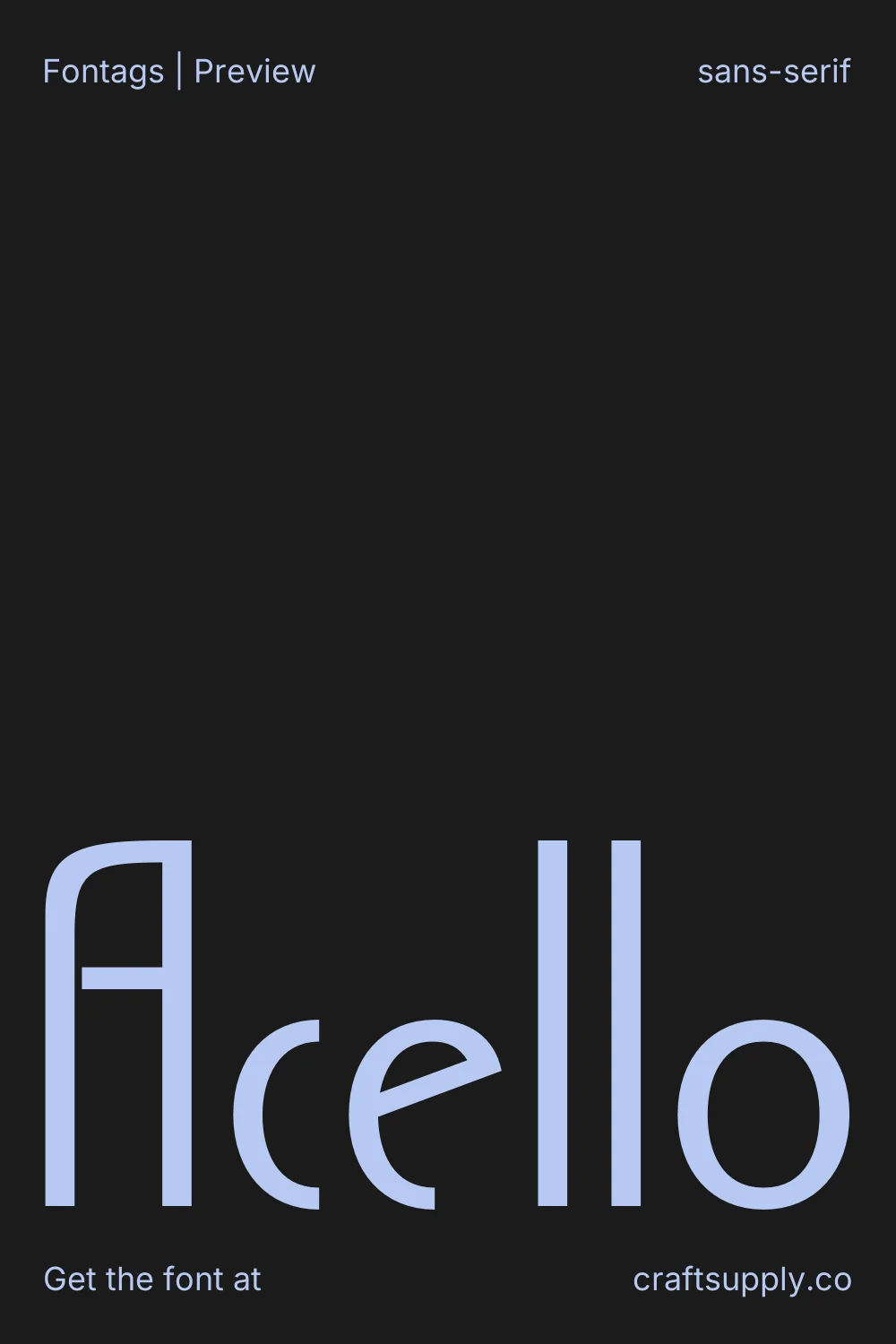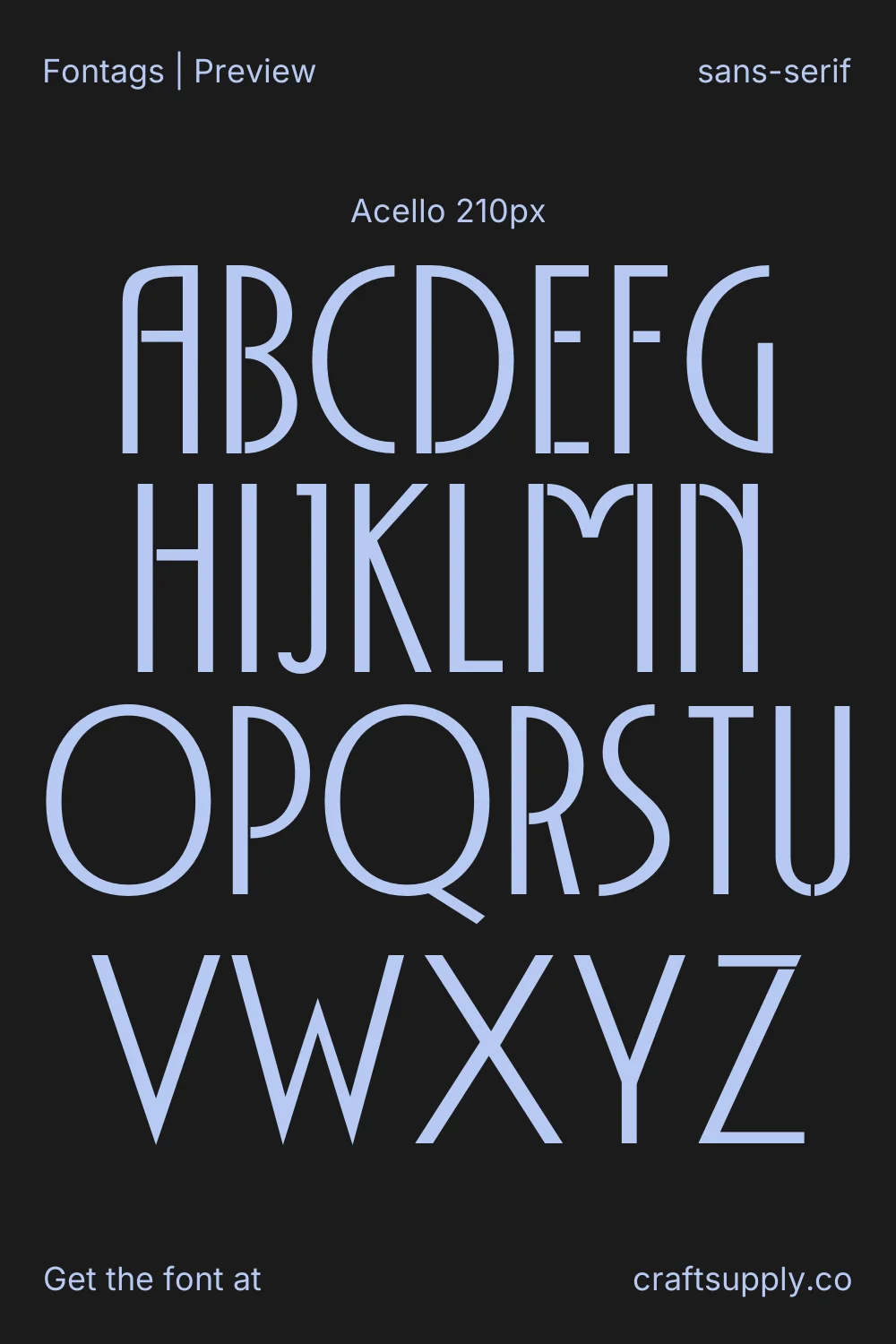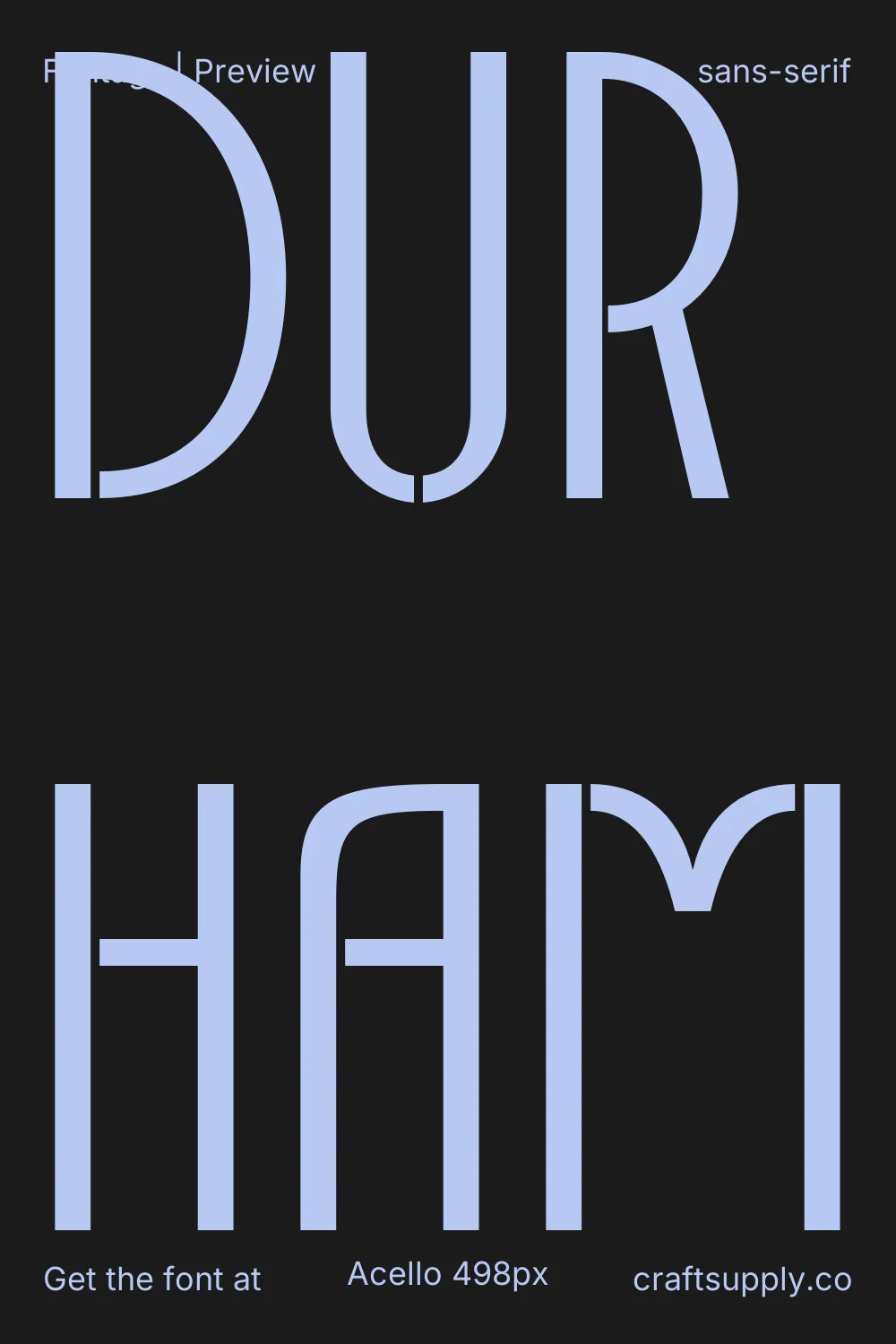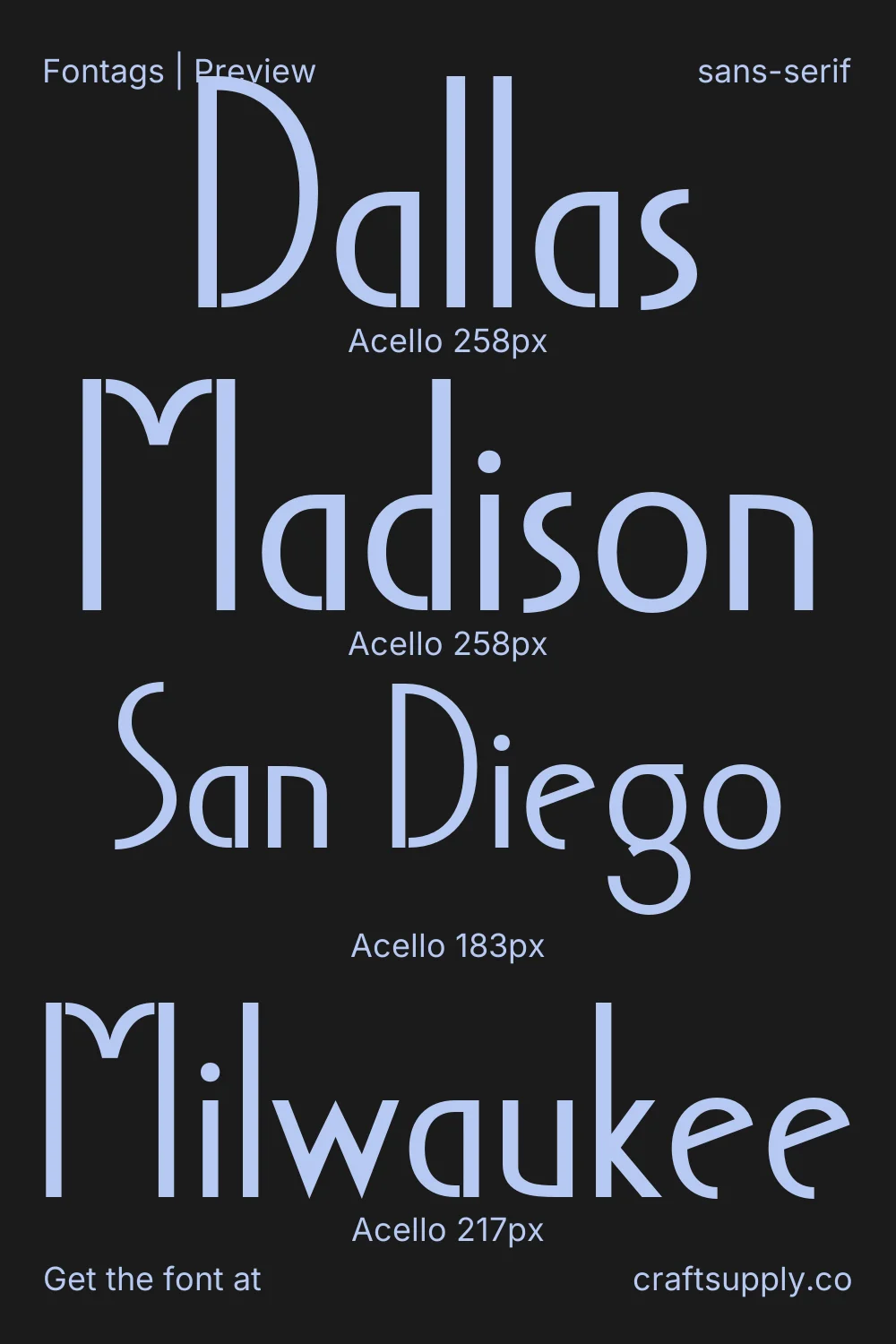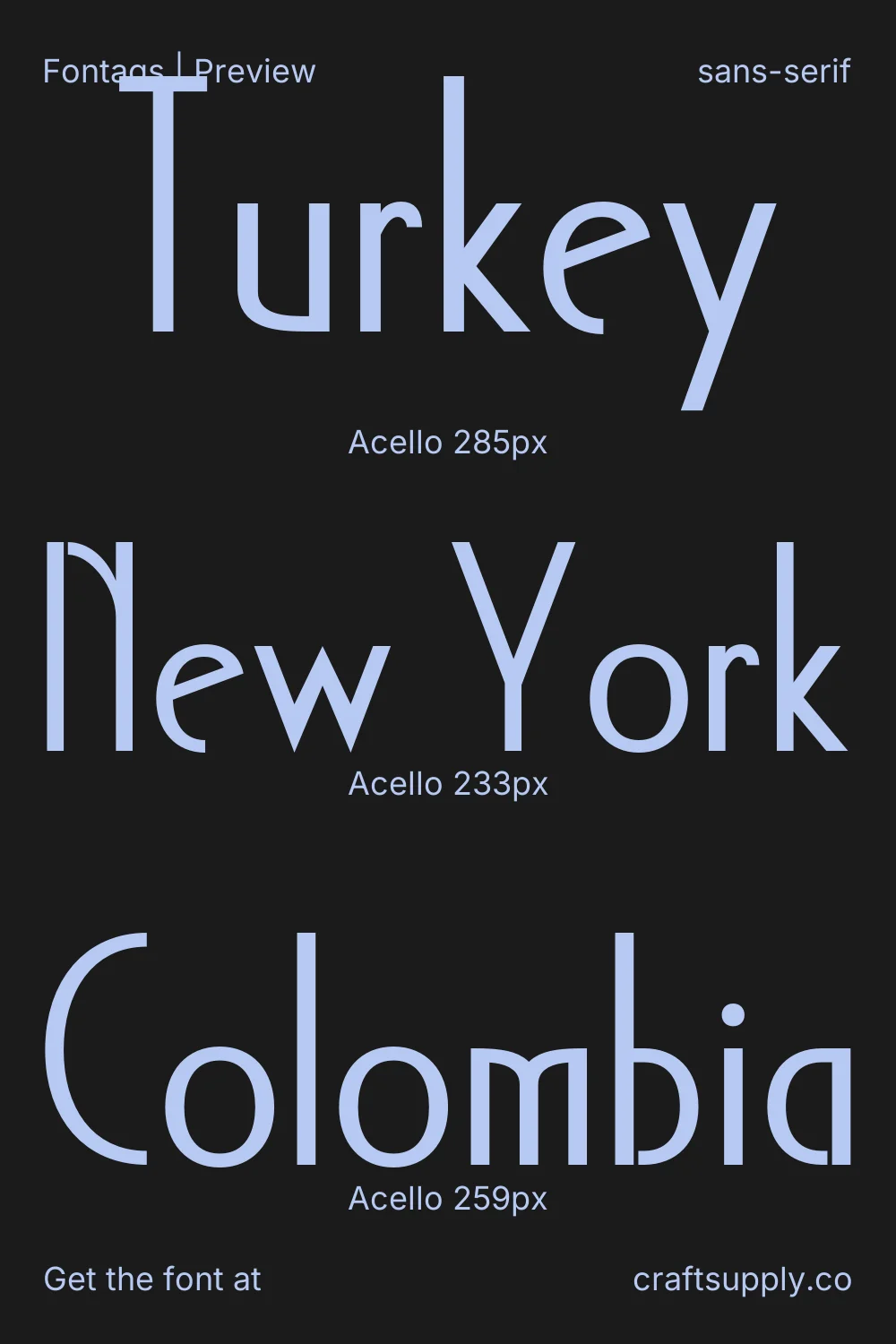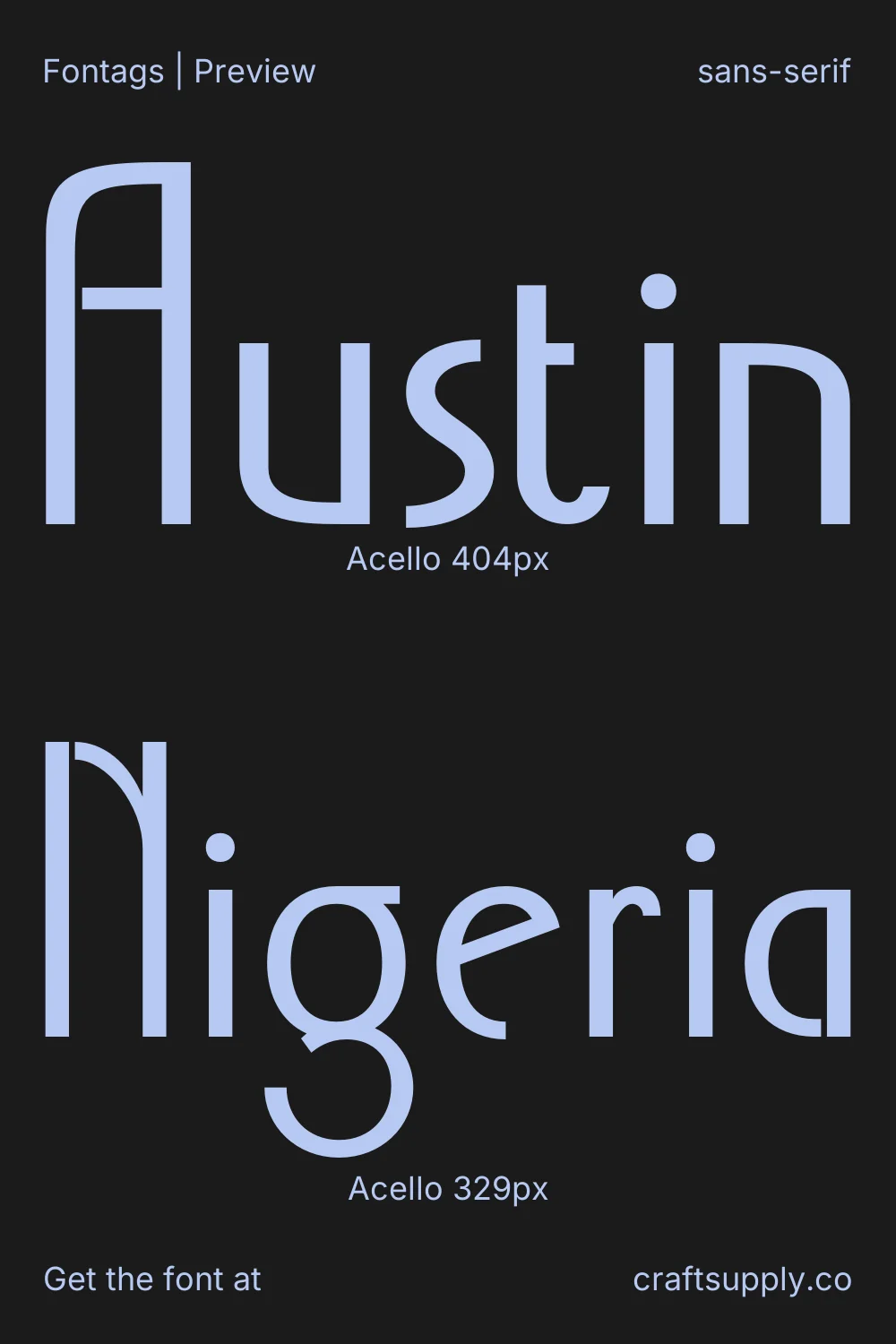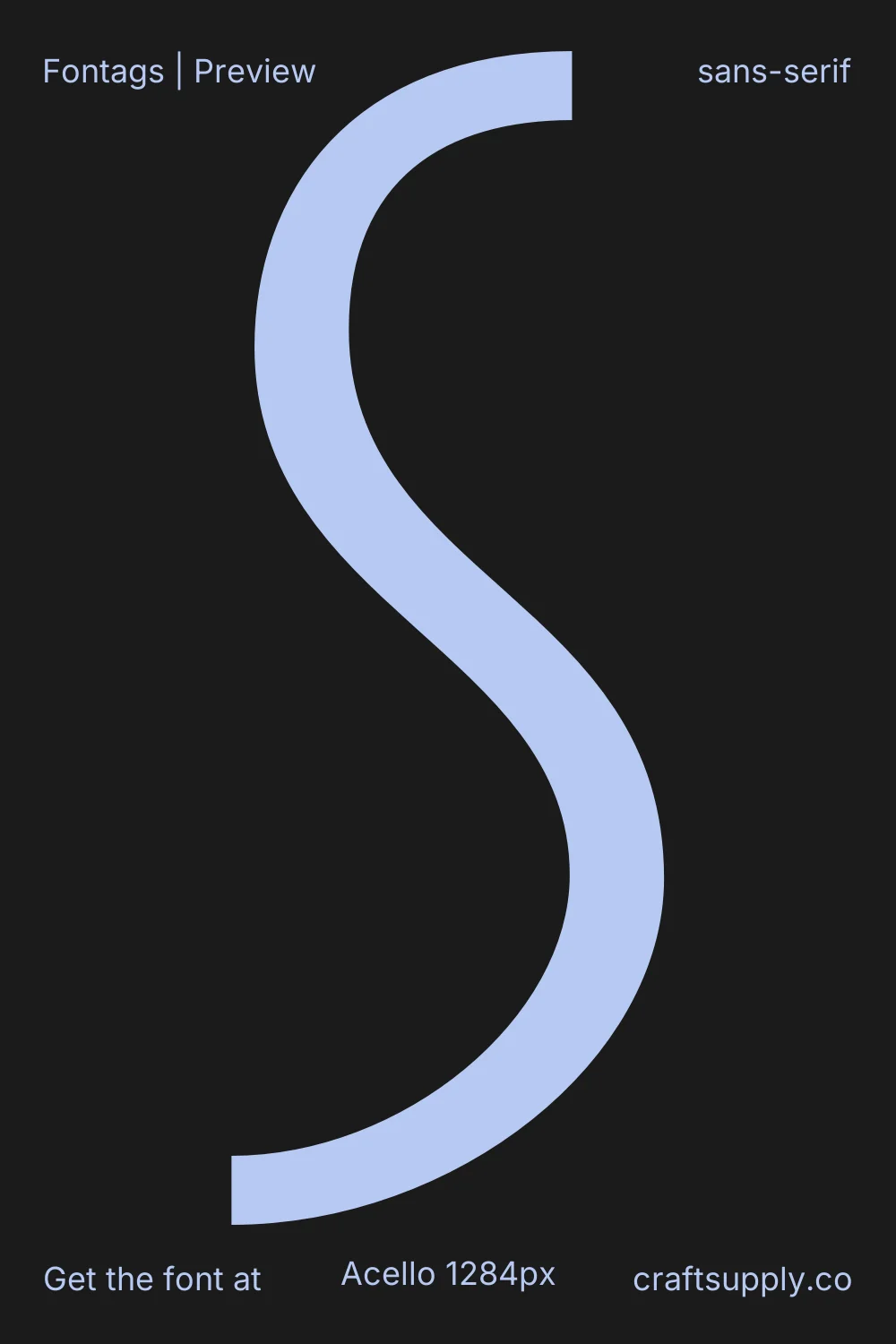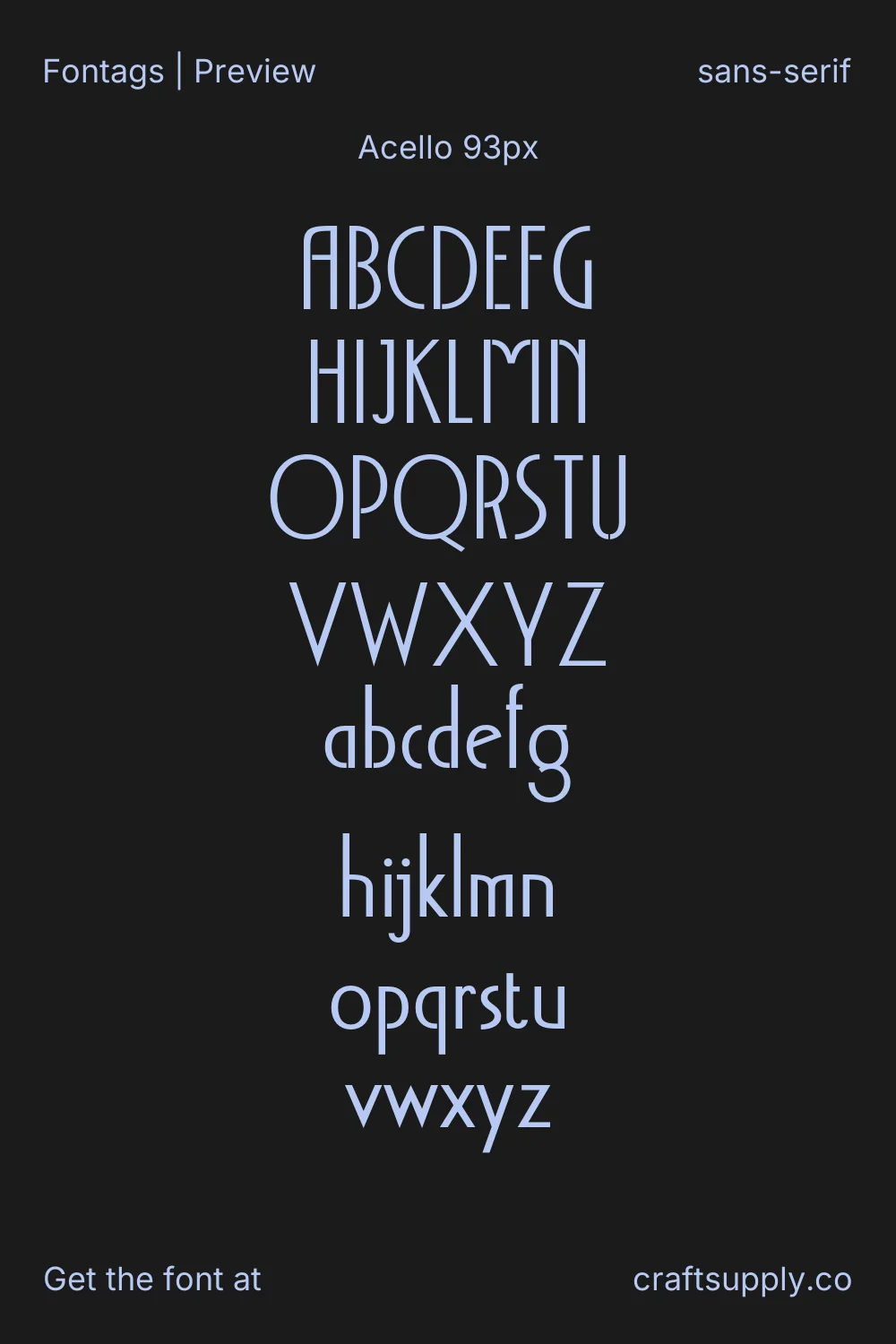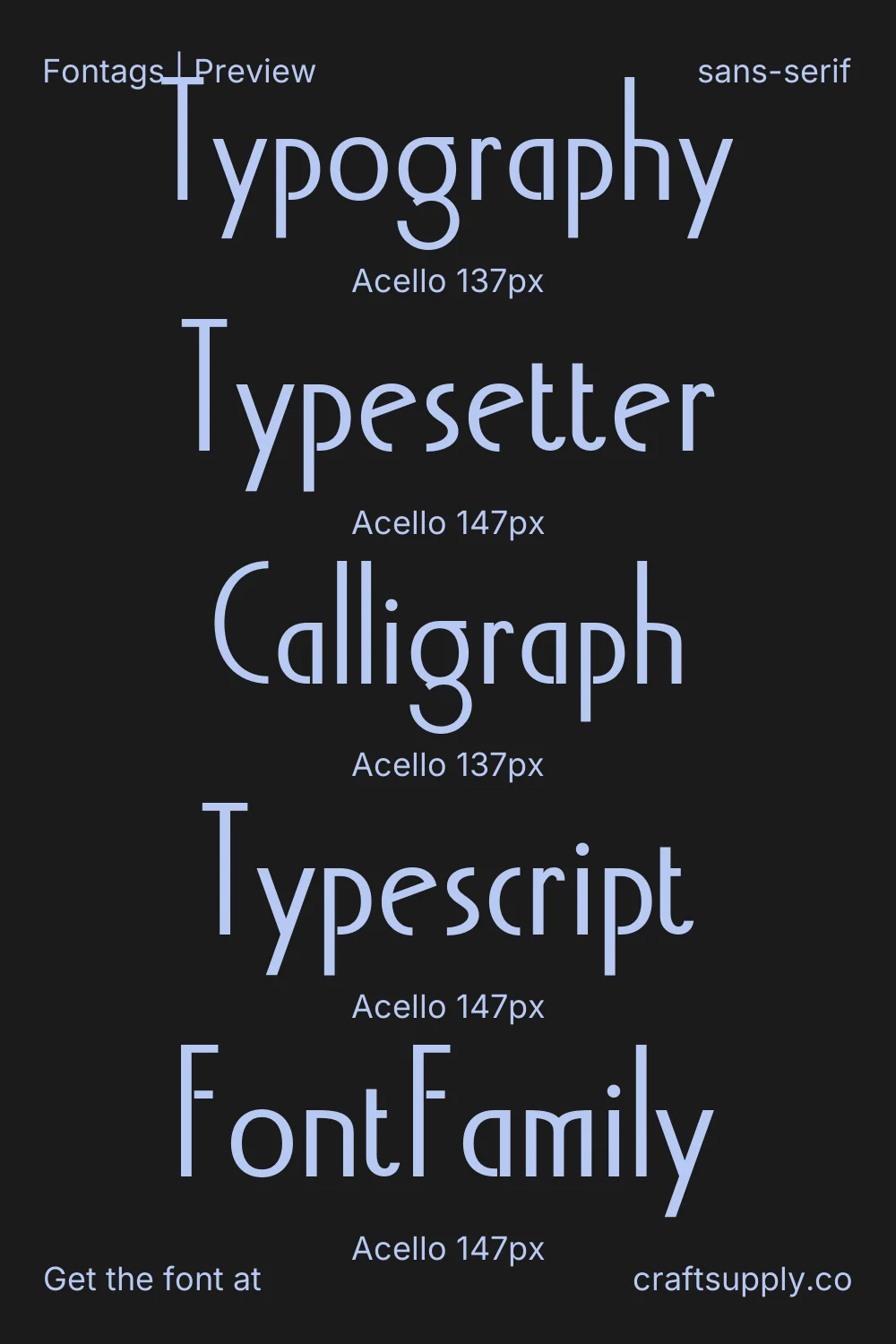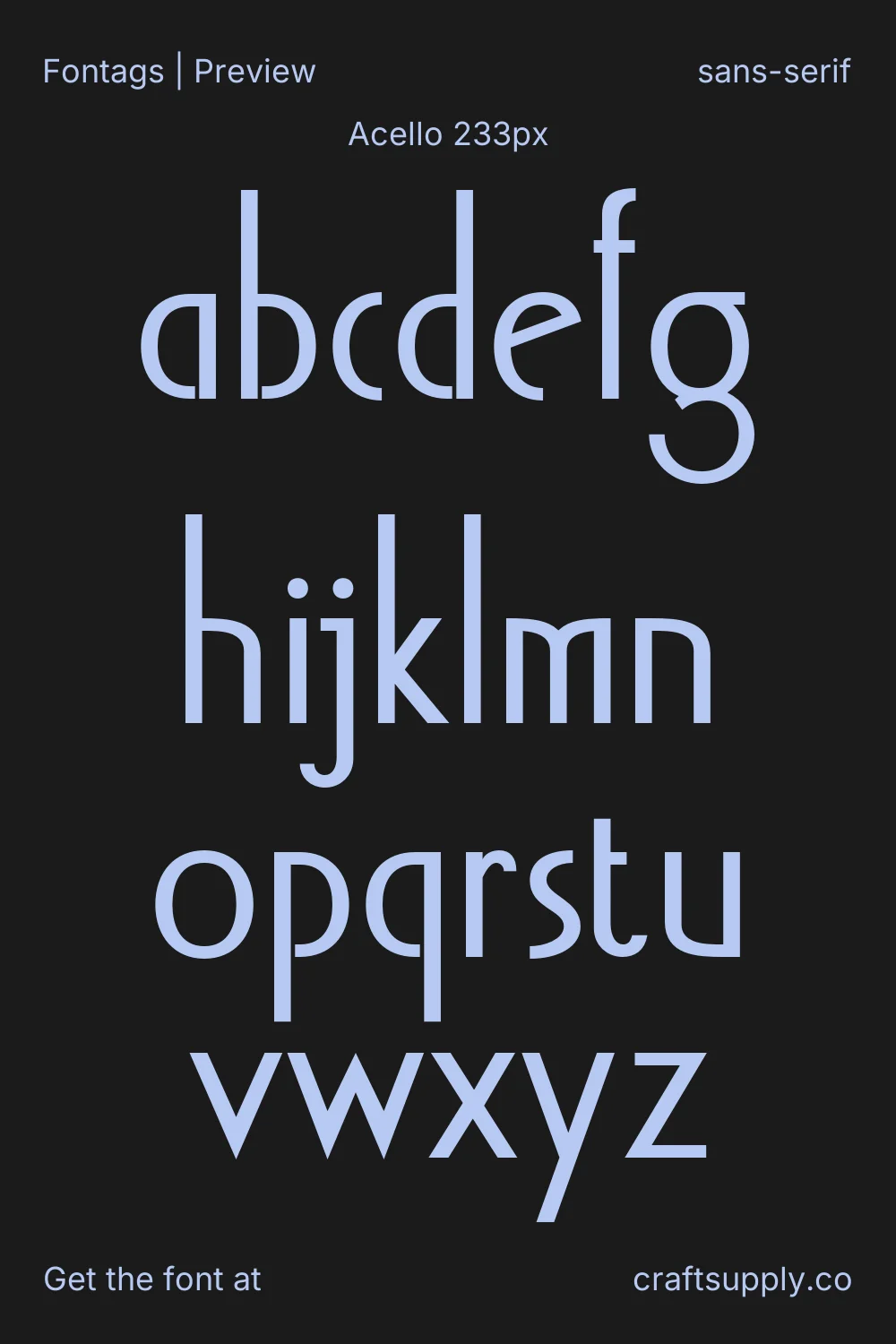
Acello
Acello is a geometric sans serif font that combines modern simplicity with versatile elegance. Its clean lines and balanced proportions ensure excellent readability, making it ideal for logos, headlines, and display designs. The font includes Regular and Italic styles, and supports multilingual characters.